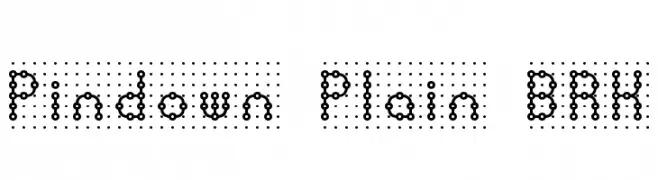
A dotted, grid-like font with characters formed by interconnected circles.
A playful, chain-like decorative font with bold outlines and circular patterns.
A playful, dotted font with interconnected circular characters.